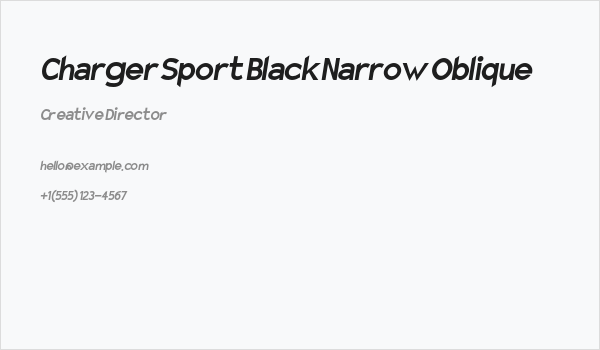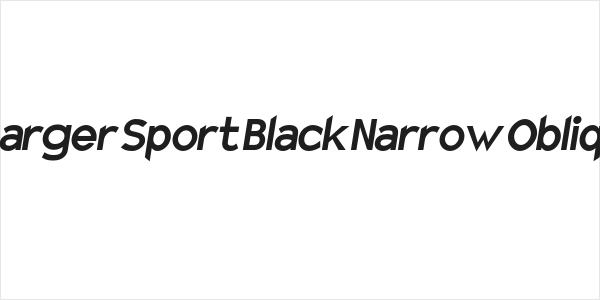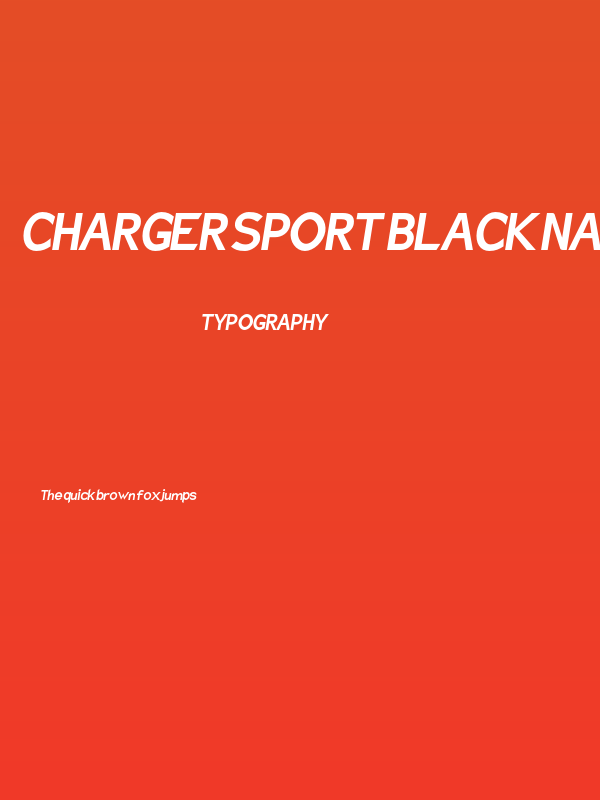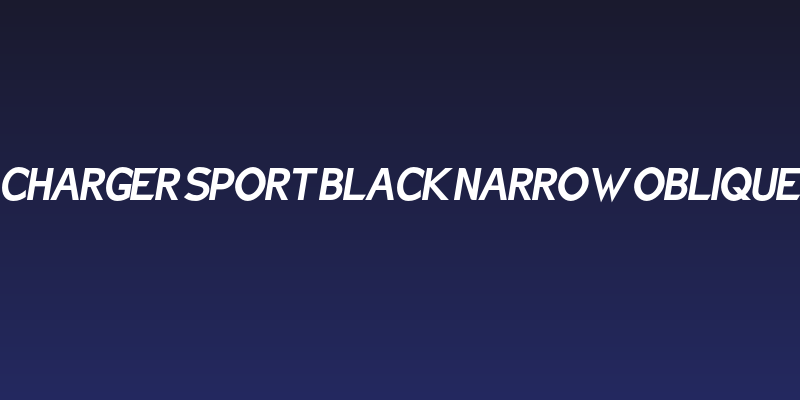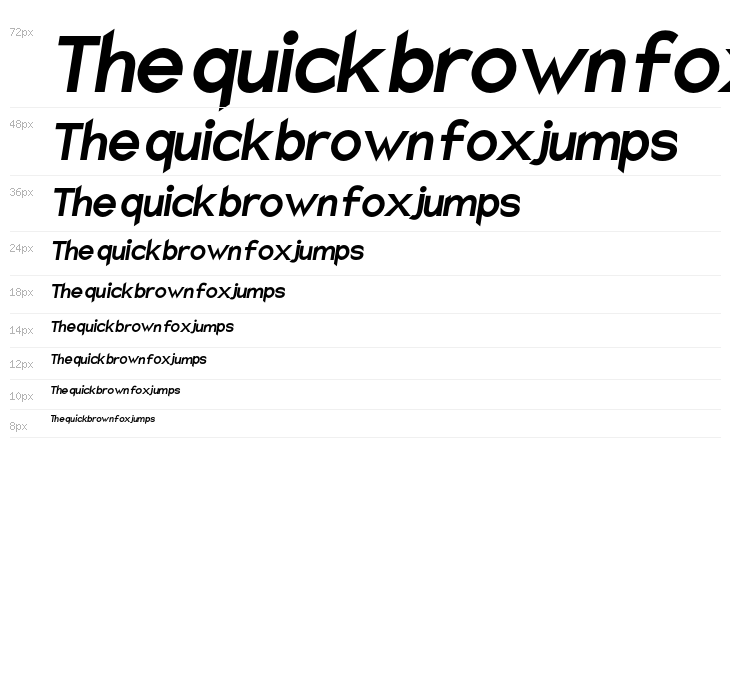
Charger Sport Black Narrow Oblique Font
Charger Sport Black Narrow Oblique Description
This font exhibits a sleek and modern aesthetic with a distinct oblique slant, giving it a dynamic and energetic appearance. The characters are narrow, enhancing the sense of speed and movement. The strokes are consistent and bold, providing a strong visual impact. The uppercase and lowercase letters maintain a uniform style, with rounded edges that soften the overall look. The numerals are clear and easily readable, while the special characters are well-integrated, maintaining the font's cohesive design. This font is ideal for projects that require a sporty and contemporary feel.
| Proposed Projects | Ideal for sports branding, dynamic posters, modern advertising, and automotive design. |